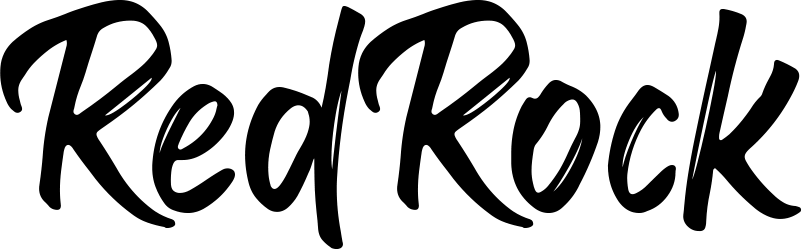
RedRock Font
Meet RedRock, the brush font that will transform your design into something beautiful in no time. It is a script brush in the traditional sense. Because of its friendly appearance, it is ideal for making printed text, fashion magazines, headlines, and many other things. So what’s the point of waiting? Take a look at RedRock right now!